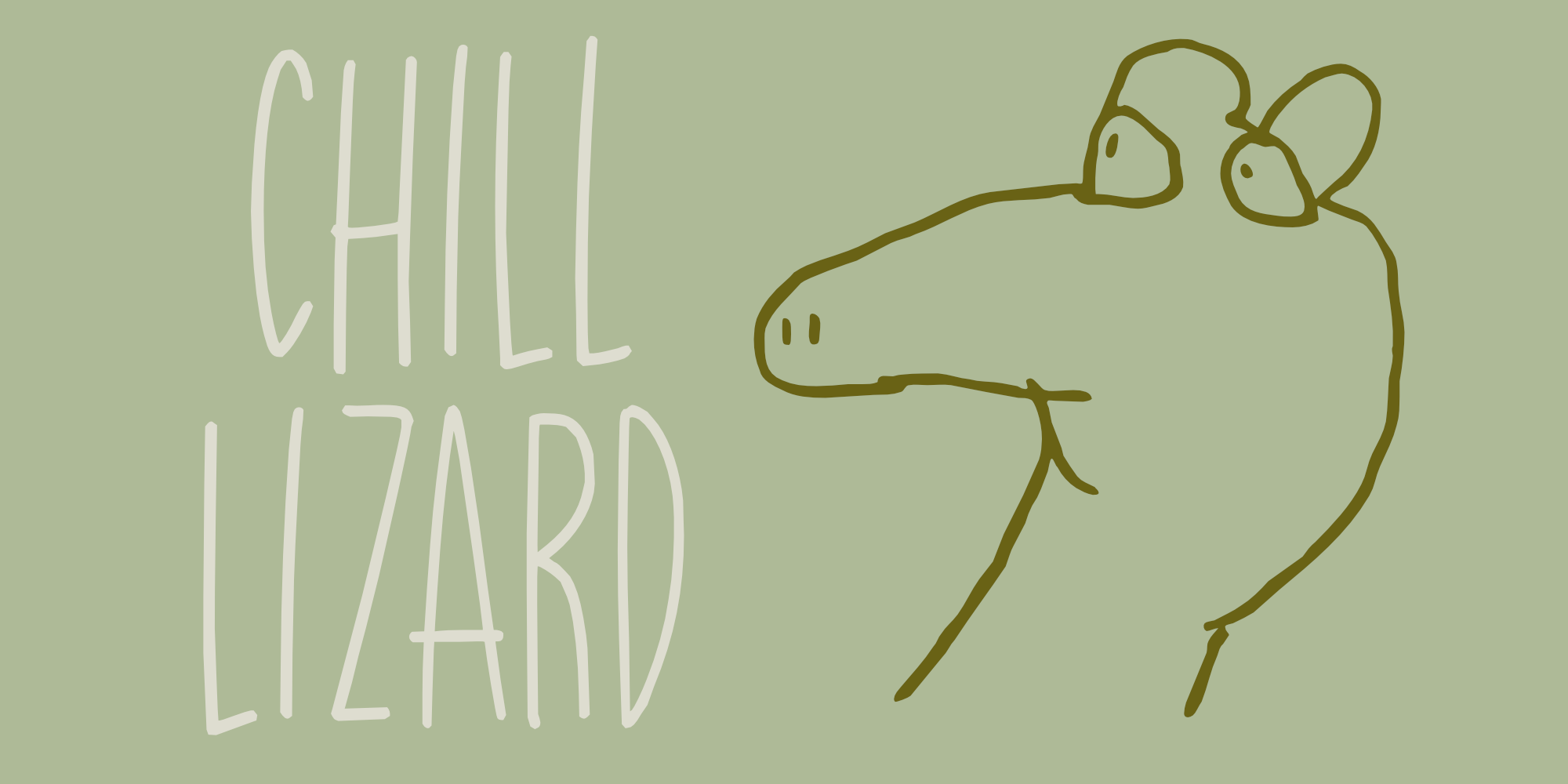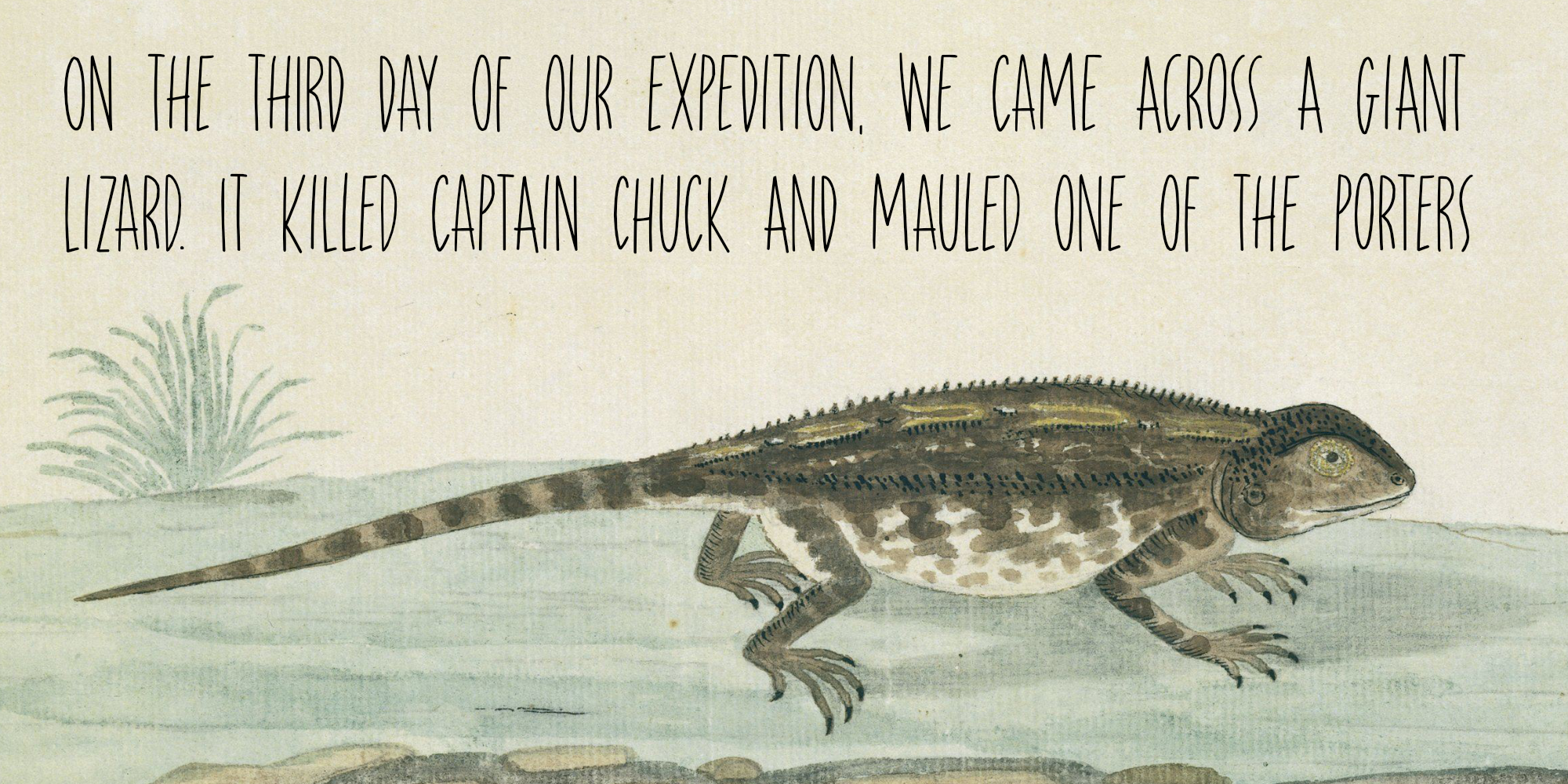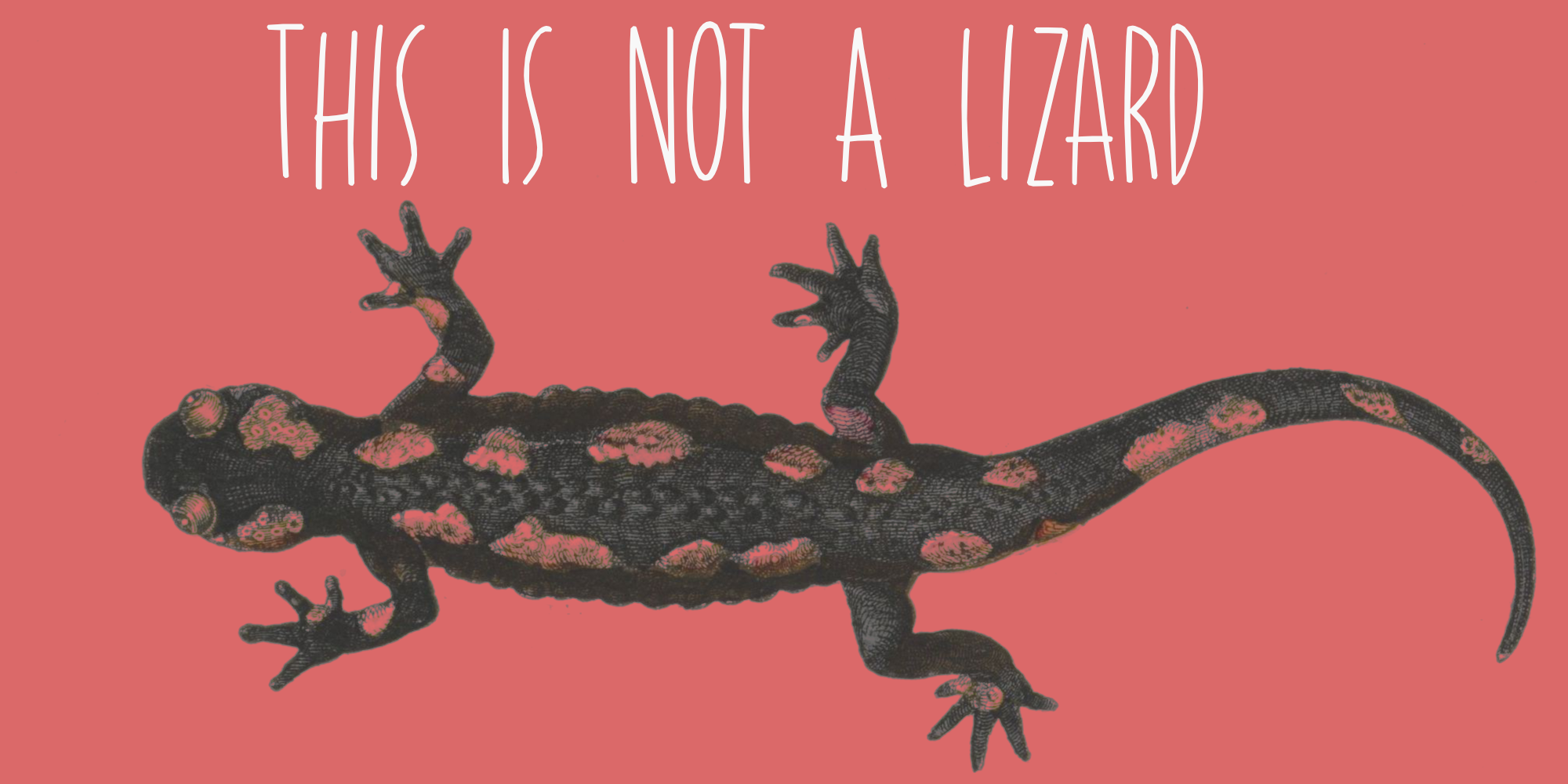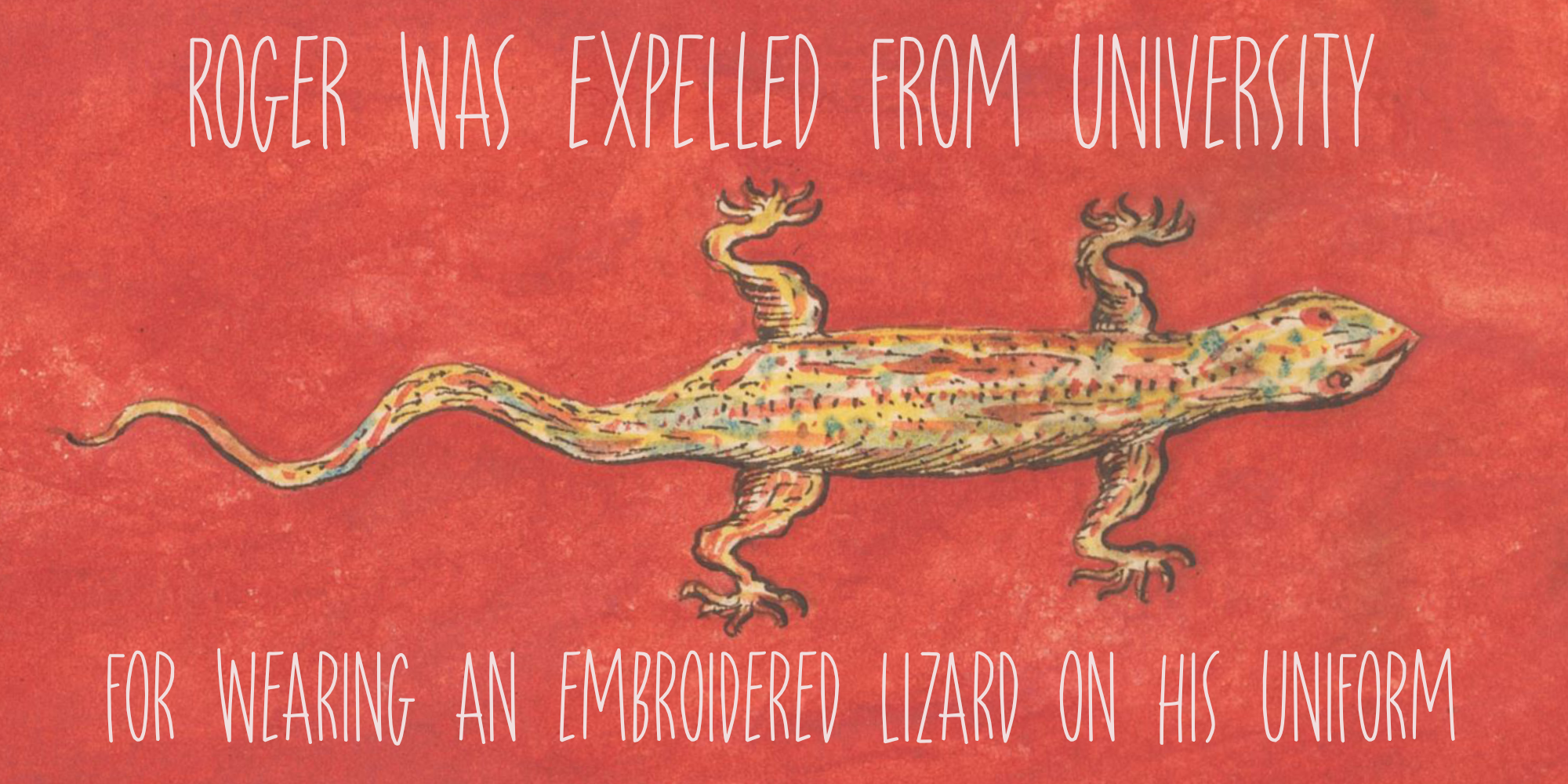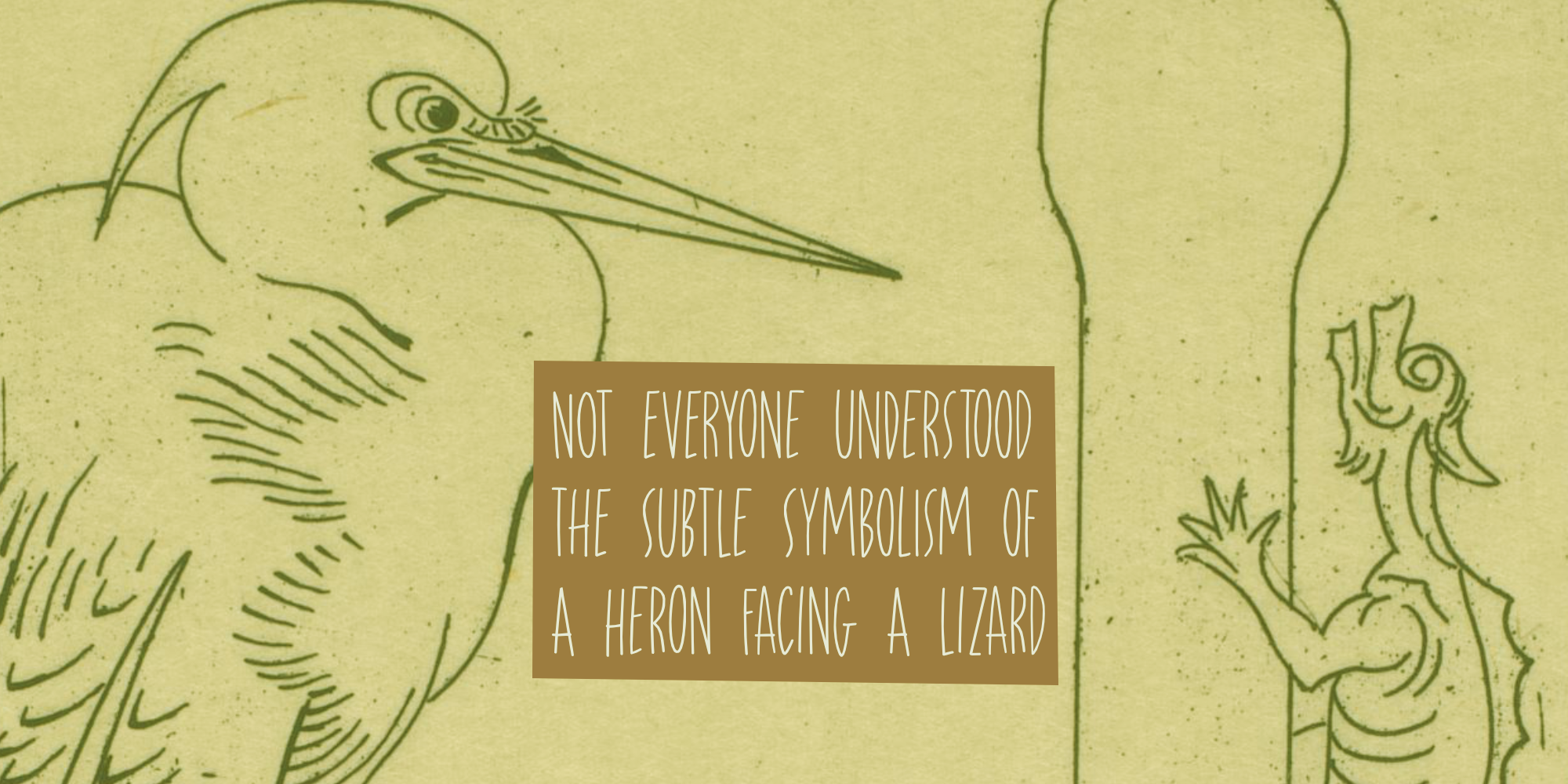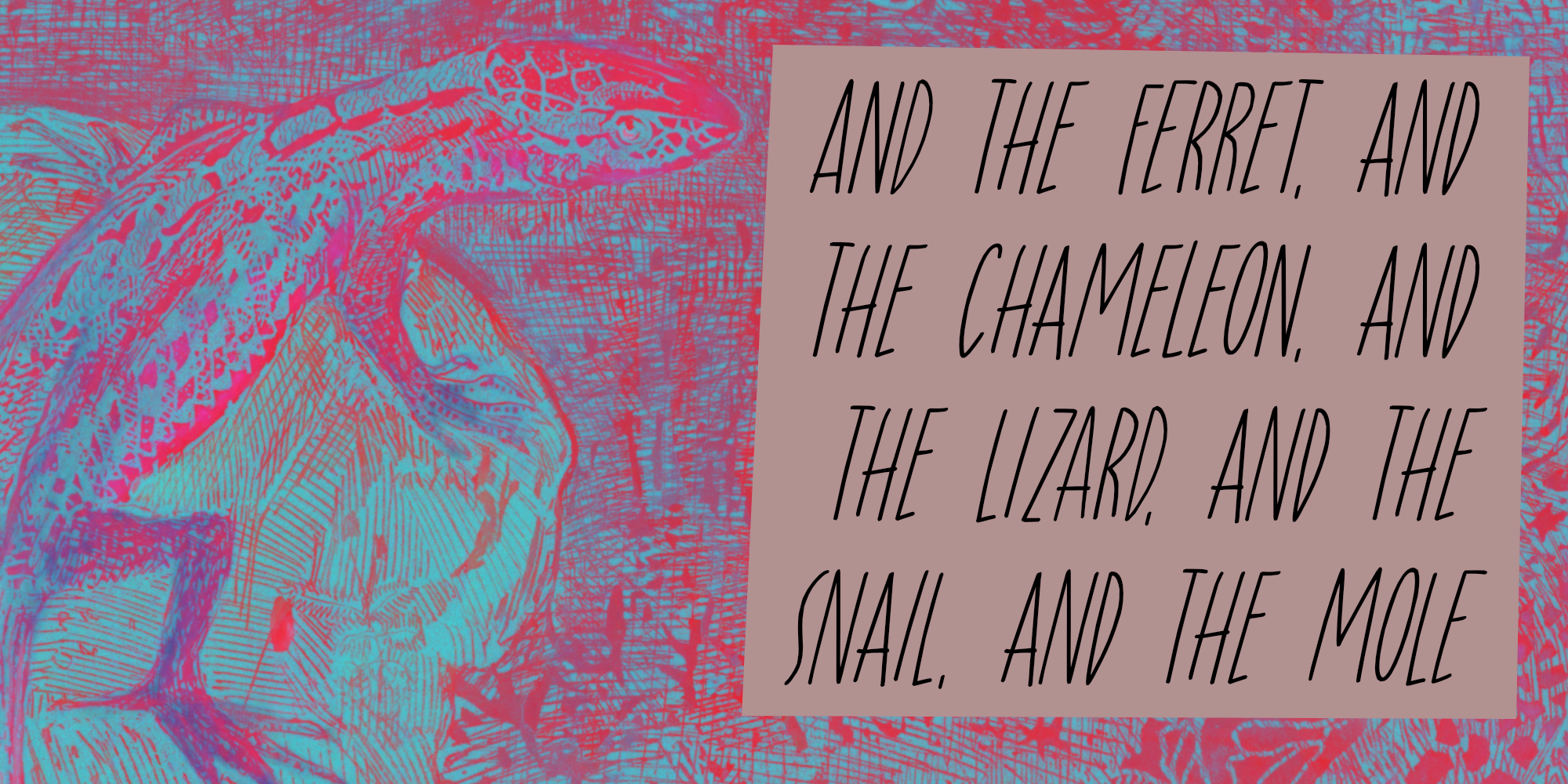
Chill Lizard (2 fonts)
He doesn’t talk much using words, but he does talk with drawings and funny stand up sketches. So, a few weeks ago, he drew a lizard, which was his way of telling me he wanted to visit the zoo. I did like that drawing of his, so I decided to draw a font for it and named it Chill Lizard.